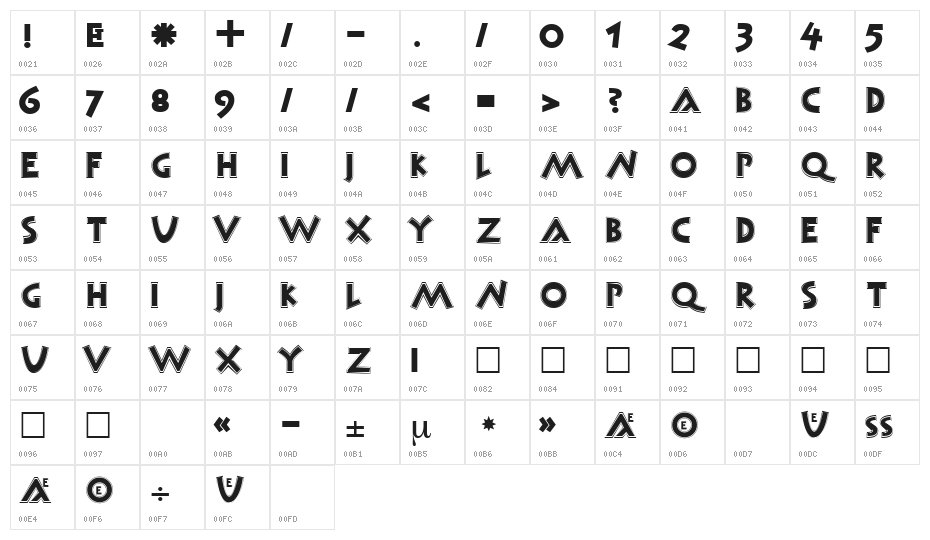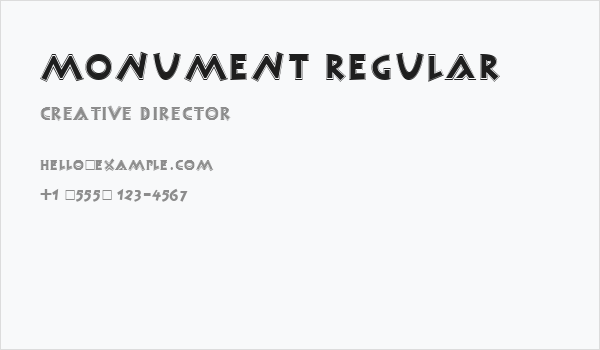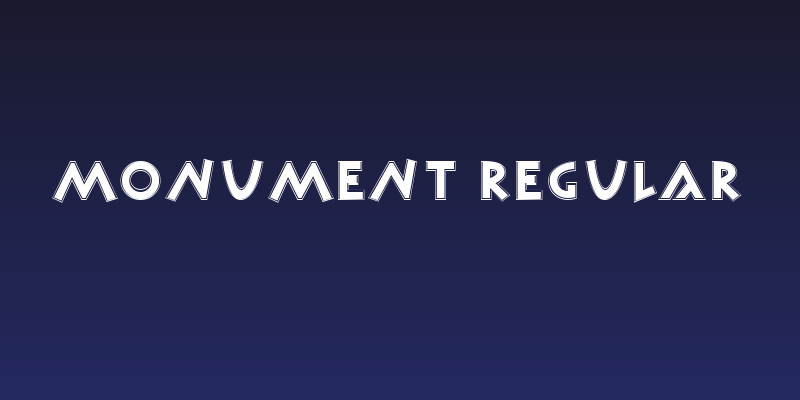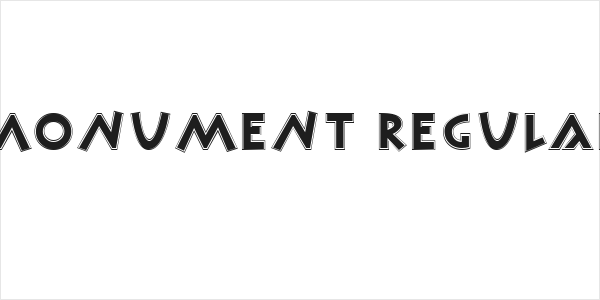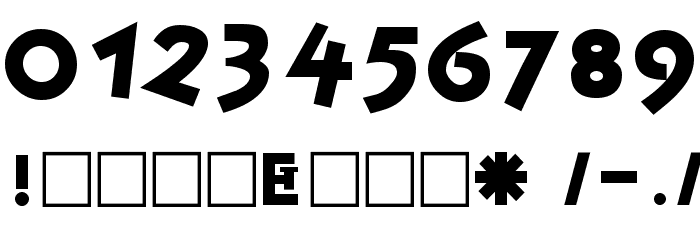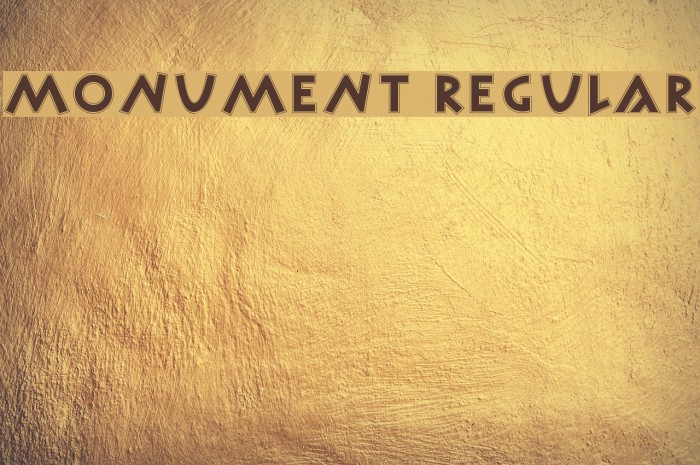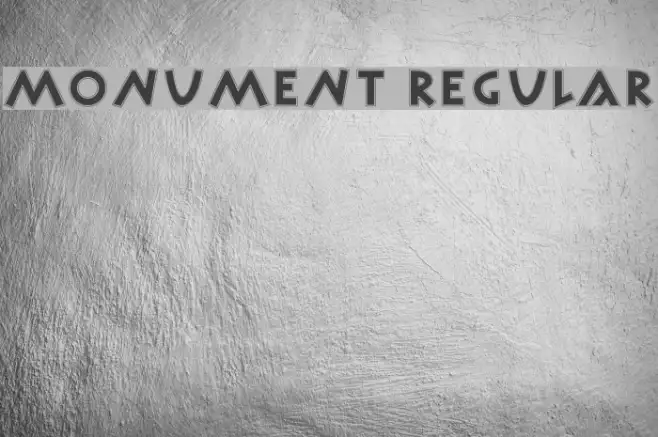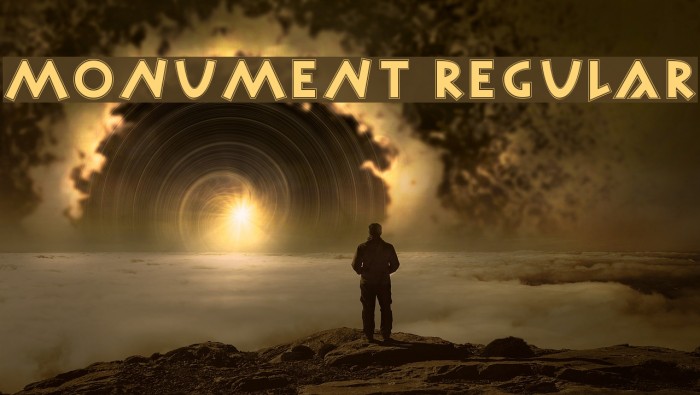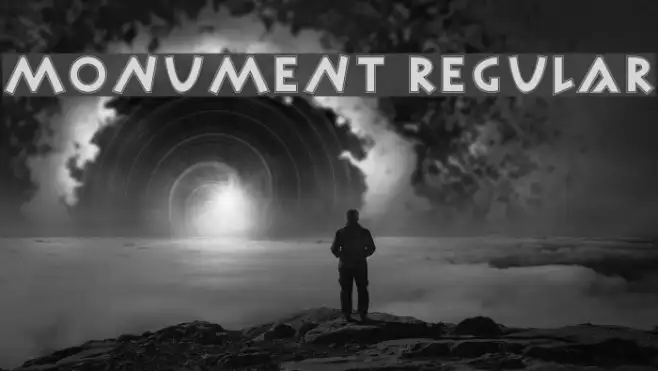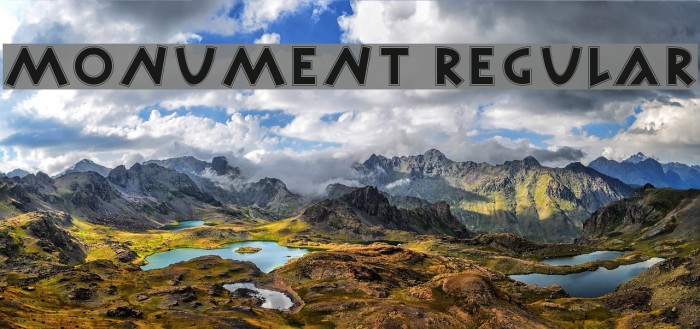
Monument Regular Font
Monument Regular Description
This font features a bold, geometric style with strong, angular lines and a distinct Art Deco influence. The uppercase letters are characterized by sharp edges and a sense of symmetry, creating a powerful visual impact. The numbers and special characters maintain this bold aesthetic, ensuring consistency across all elements. The font's design is both modern and reminiscent of early 20th-century design trends, making it suitable for projects that require a touch of elegance and sophistication.